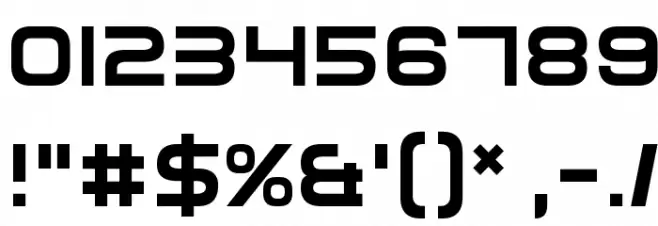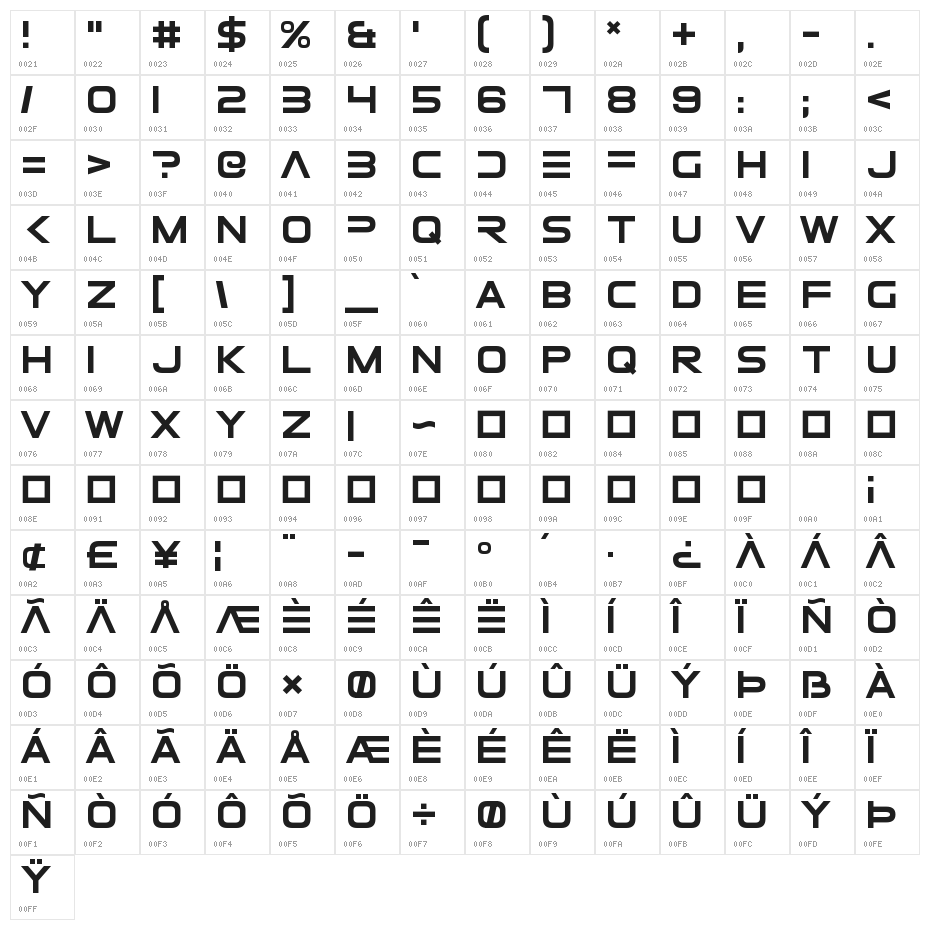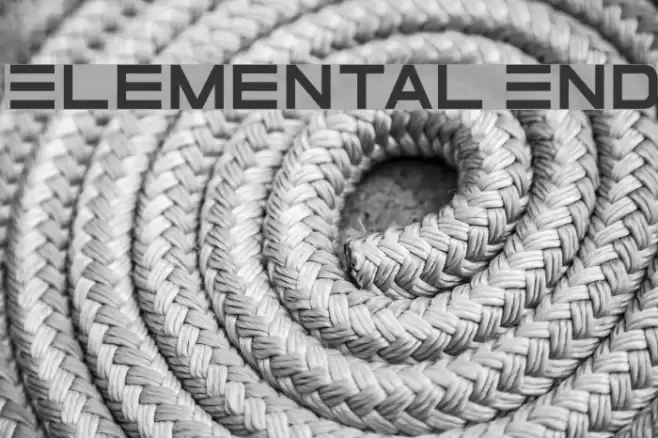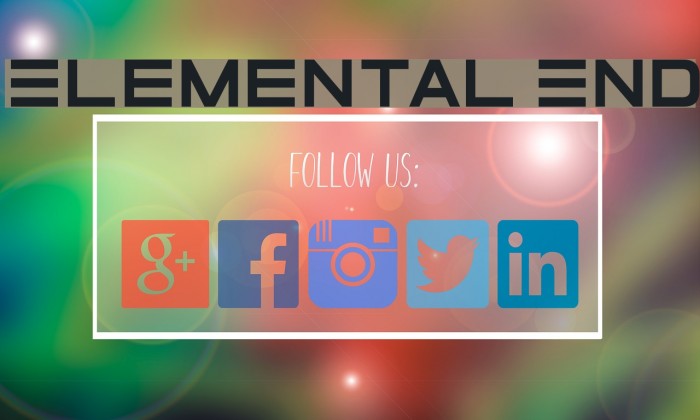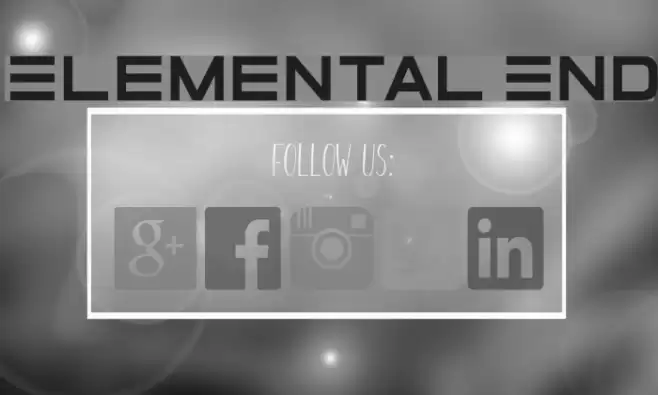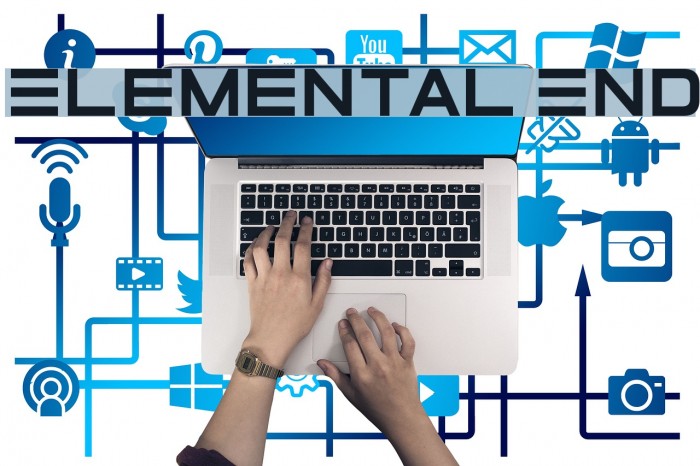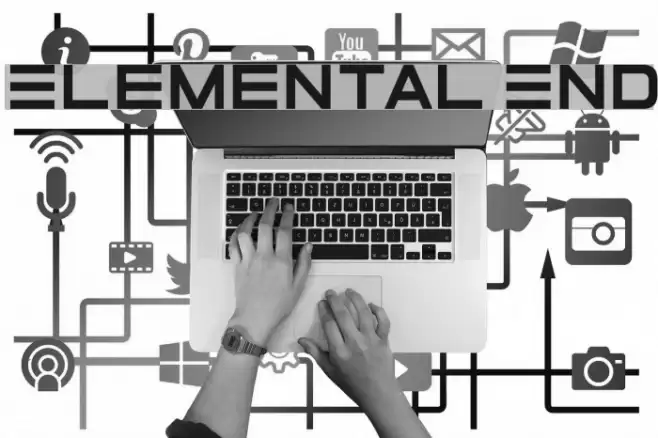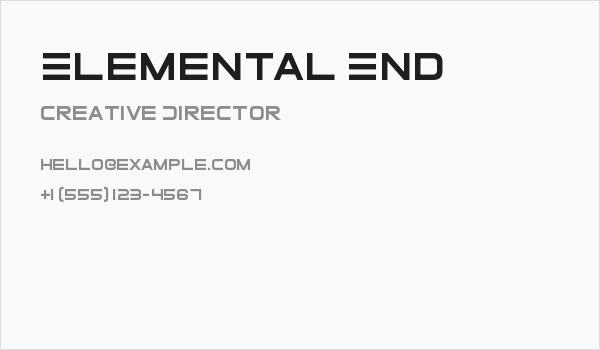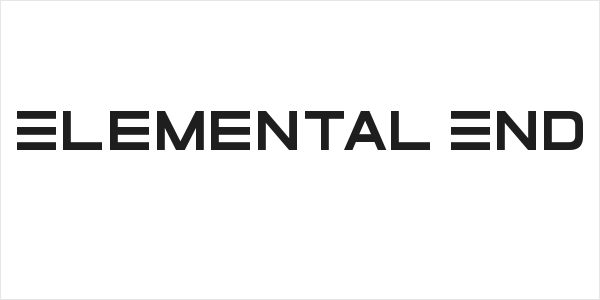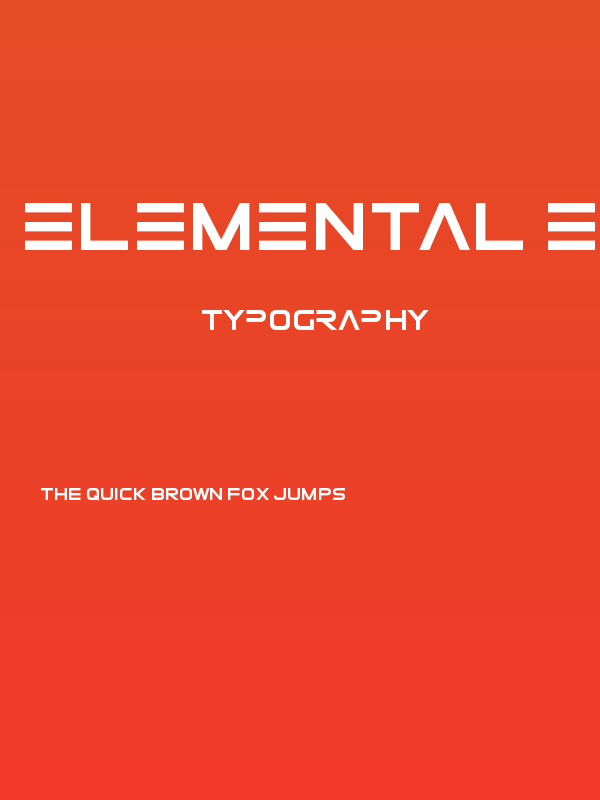
Elemental End Font
Elemental End Description
This font features a futuristic and geometric design with a strong emphasis on angular shapes and clean lines. The uppercase and lowercase letters maintain a consistent width, creating a uniform appearance. The numerals are distinct and easily readable, with a modern aesthetic. Special characters are designed to complement the overall style, adding to its versatility. The font's boldness and clarity make it suitable for various applications, especially where a contemporary and tech-inspired look is desired.
Proposed ProjectsIdeal for technology branding, sci-fi themed projects, modern posters, and digital interfaces.